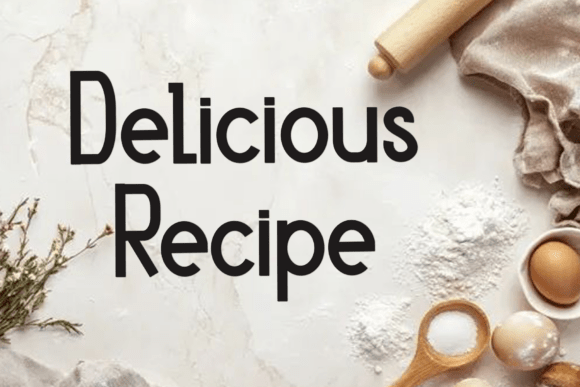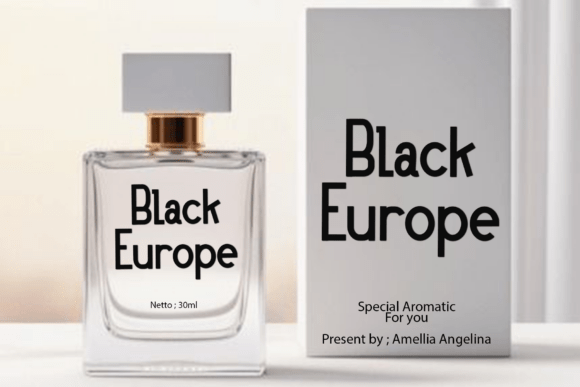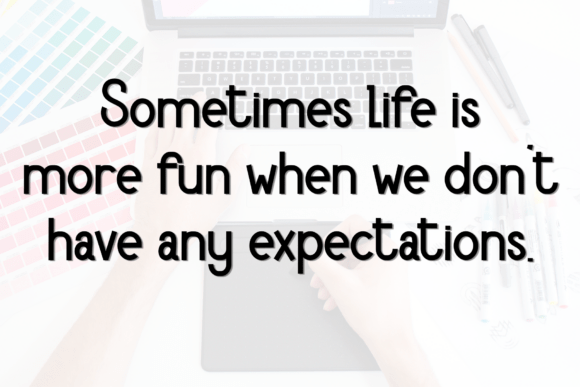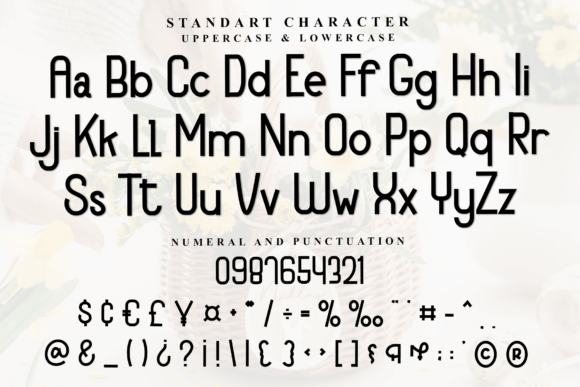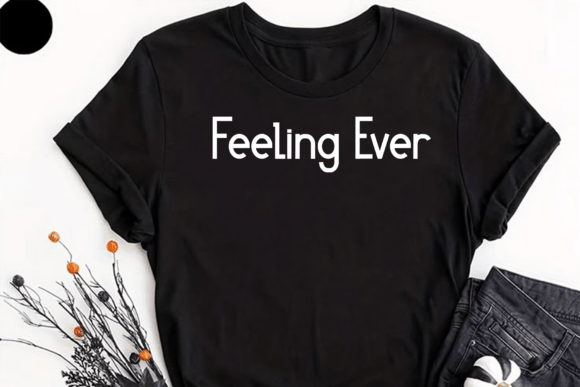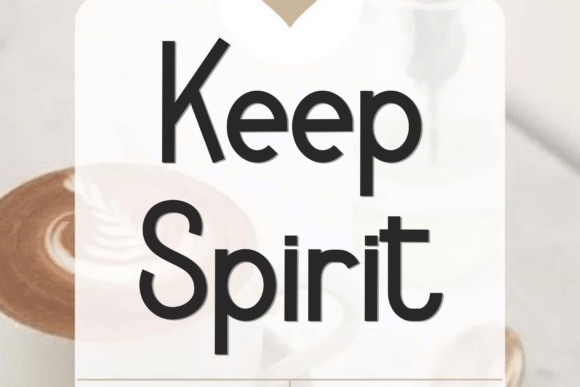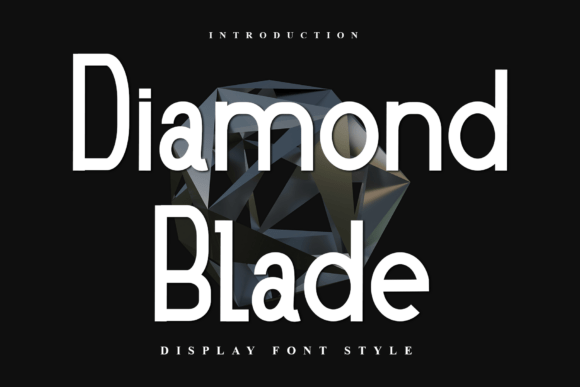
Diamond Blade Font: Elevate Your Designs with Precision and Sophistication
In the world of typography, a well-crafted font can make all the difference in elevating your design to the next level. Introducing Diamond Blade, a clean, modern display font that strikes the perfect balance between geometric precision and sophisticated professionalism. This versatile typeface is designed to make a statement, making it an ideal choice for designers and crafters looking to add a touch of elegance to their projects.
Geometric Precision Meets Sophistication
Diamond Blade’s design is characterized by its tall, slender letterforms with a consistent monolinear weight and slightly rounded terminals. This unique combination gives the font a sleek and organized appearance, perfect for creating a lasting impression. The high x-height and narrow proportions of the typeface ensure high impact and legibility, making it ideal for headers and titles.
One of the standout features of Diamond Blade is its versatility. This font is suitable for a wide range of applications, including minimalist architectural presentations, technology branding, corporate title sequences, and contemporary lifestyle marketing. Whether you’re designing a sleek and modern website, a cutting-edge tech product, or a stylish marketing campaign, Diamond Blade is the perfect choice.
Key Features of Diamond Blade
- Clean and Modern Design: Diamond Blade boasts a clean and modern design that exudes sophistication and elegance.
- Geometric Precision: The font’s geometric precision ensures a high level of legibility and makes it perfect for headers and titles.
- Consistent Monolinear Weight: The consistent monolinear weight of the letterforms gives the font a sleek and organized appearance.
- Slightly Rounded Terminals: The slightly rounded terminals add a touch of warmth and sophistication to the font.
- High x-Height and Narrow Proportions: The high x-height and narrow proportions ensure high impact and legibility, making it ideal for headers.
Why Choose Diamond Blade?
So, why should you choose Diamond Blade for your next design project? Here are just a few reasons:
- Make a Statement: With Diamond Blade, you can create stunning headers and titles that make a lasting impression.
- Add a Touch of Sophistication: The font’s sophisticated and professional edge adds a touch of elegance to any design.
- Versatility: Diamond Blade is suitable for a wide range of applications, making it a versatile addition to your font library.
- Easy to Read: The font’s high legibility ensures that your message is communicated clearly and effectively.
Design and Crafting Applications
Diamond Blade is perfect for a variety of design and crafting applications, including:
- Graphic Design: Use Diamond Blade to create stunning posters, flyers, and brochures.
- Web Design: Add a touch of sophistication to your website with Diamond Blade’s clean and modern design.
- Branding and Identity: Use Diamond Blade to create a lasting impression with your brand’s title sequences and marketing materials.
- Crafting and DIY Projects: Add a professional touch to your crafting and DIY projects with Diamond Blade’s elegant and sophisticated design.
In conclusion, Diamond Blade is a versatile and sophisticated font that is perfect for designers and crafters looking to elevate their designs. With its clean and modern design, geometric precision, and high legibility, Diamond Blade is sure to make a lasting impression. Whether you’re working on a graphic design project, a web design project, or a crafting and DIY project, Diamond Blade is the perfect choice.